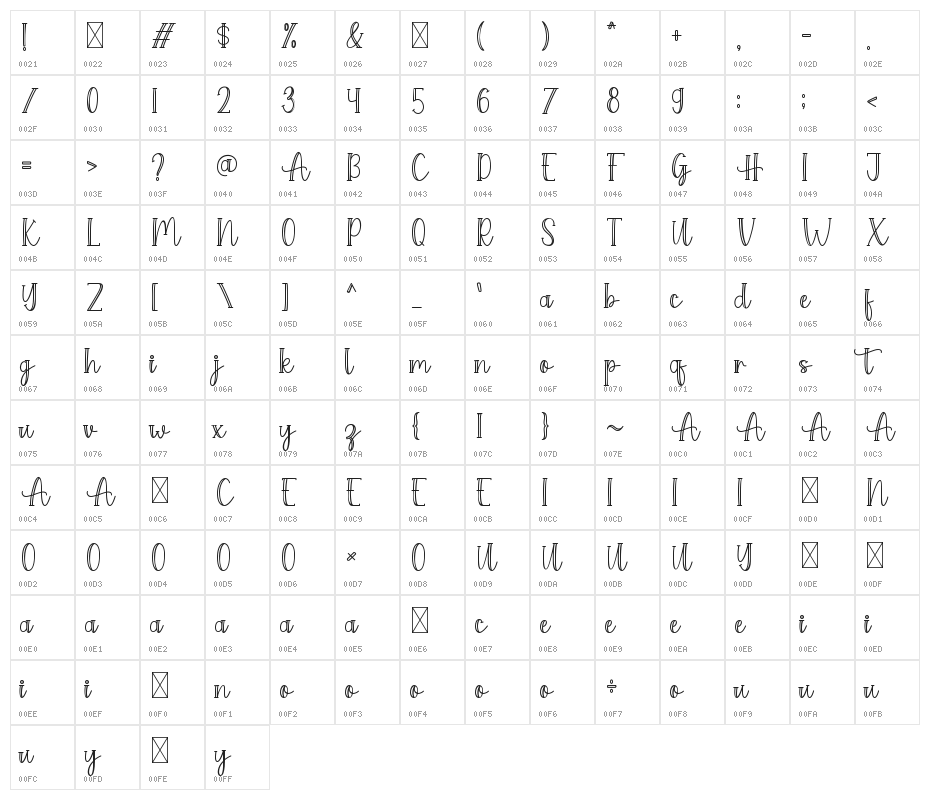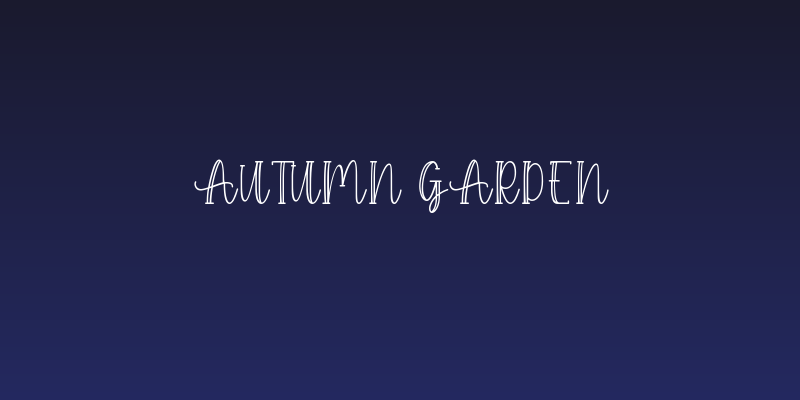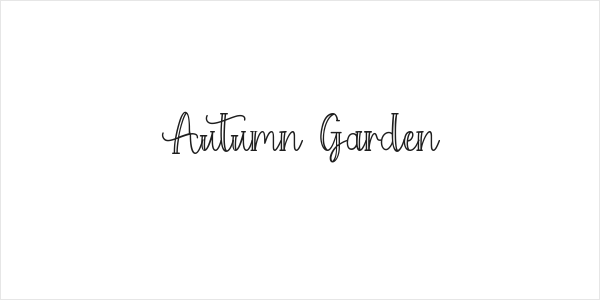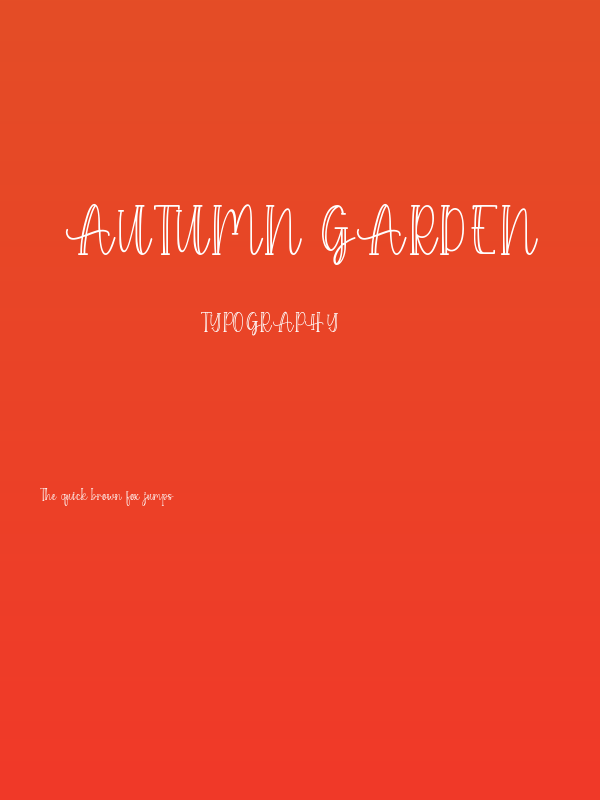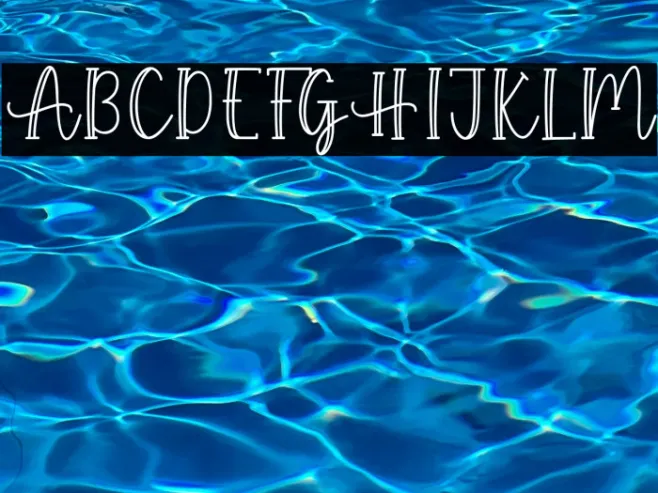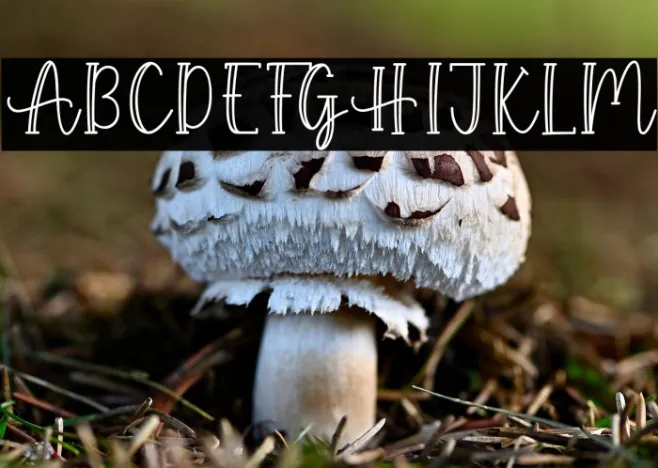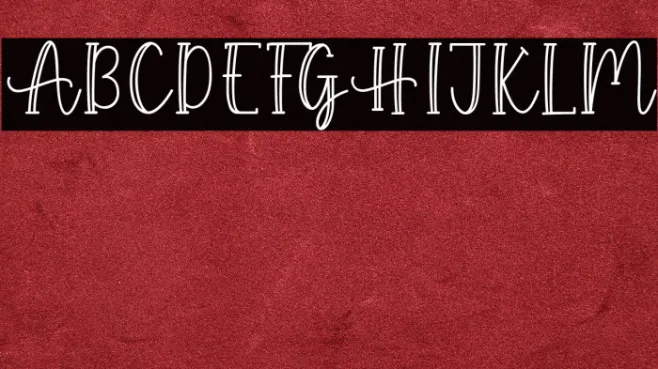
Autumn Garden Font
Autumn Garden Description
This font features a whimsical, handwritten style with a playful and artistic flair. The uppercase letters are tall and slender, with elegant curves and loops that give them a lively appearance. The lowercase letters maintain a similar style, with some characters featuring unique flourishes that add to the font's charm. The numbers are consistent with the overall design, offering a cohesive look. Special characters are creatively designed, maintaining the playful and decorative theme. This font is perfect for projects that require a touch of creativity and personality.
| Proposed Projects | Ideal for greeting cards, invitations, branding, and creative projects that require a personal touch. |